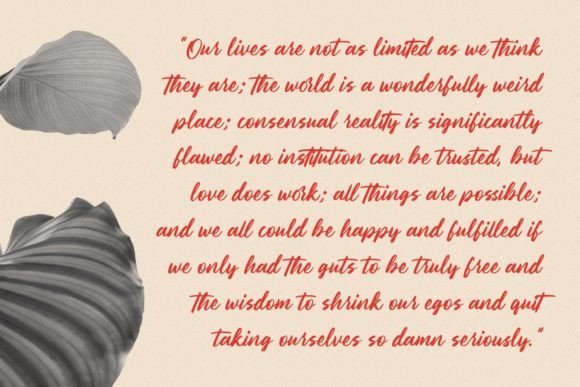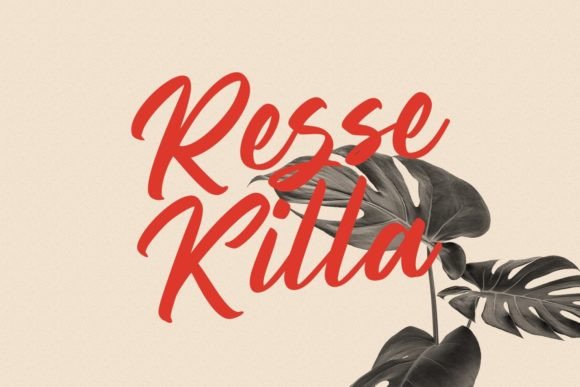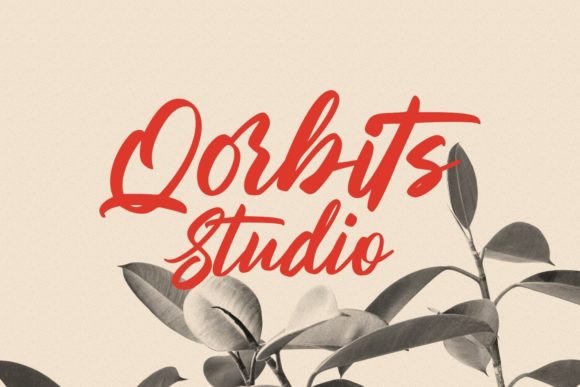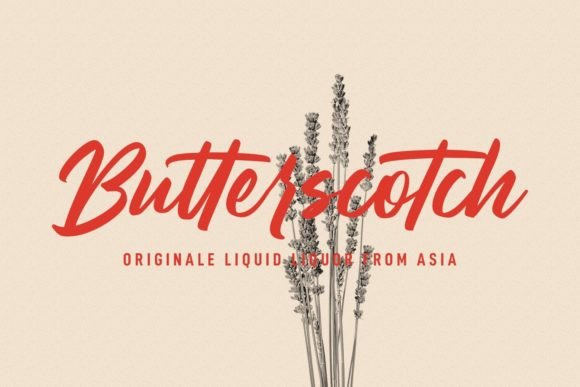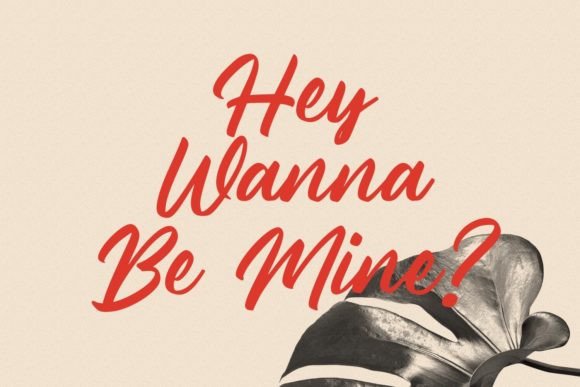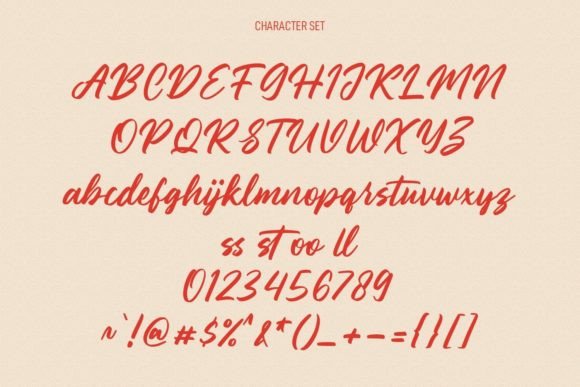
Introduction to Nitrofury Font
Nitrofury is a freestyle signature script font.
Key Features of Nitrofury Font
Why Choose Nitrofury Font?
Nitrofury Font offers exceptional quality and versatility, making it a valuable addition to your design toolkit. Whether you’re creating for personal projects or commercial use, Nitrofury Font delivers professional results.